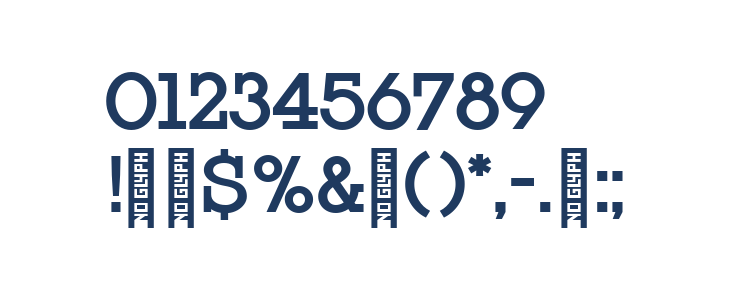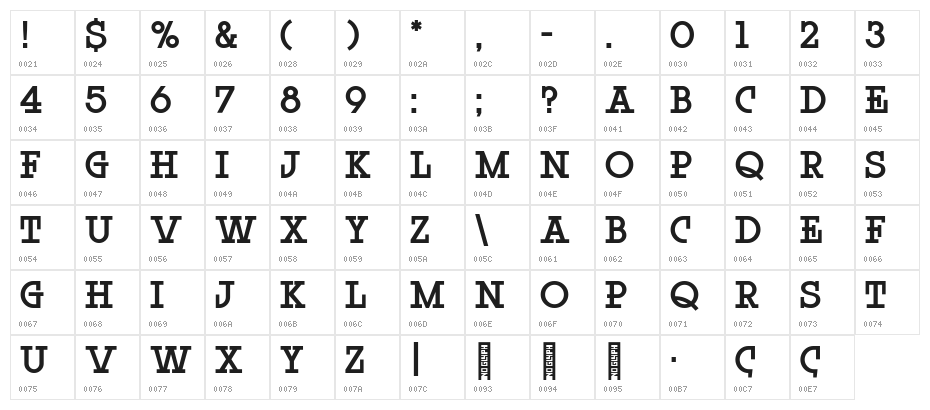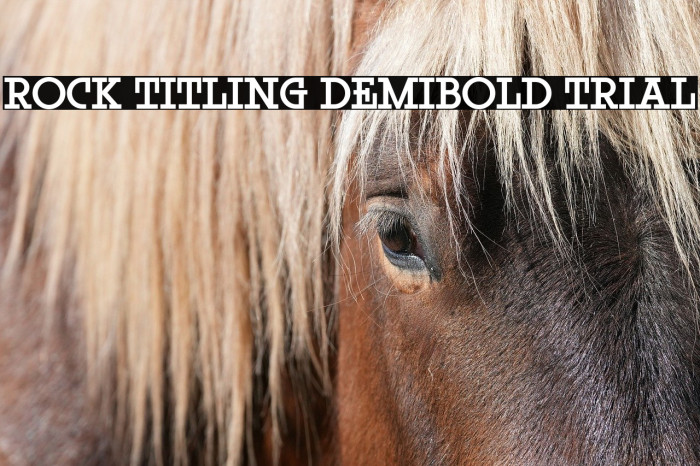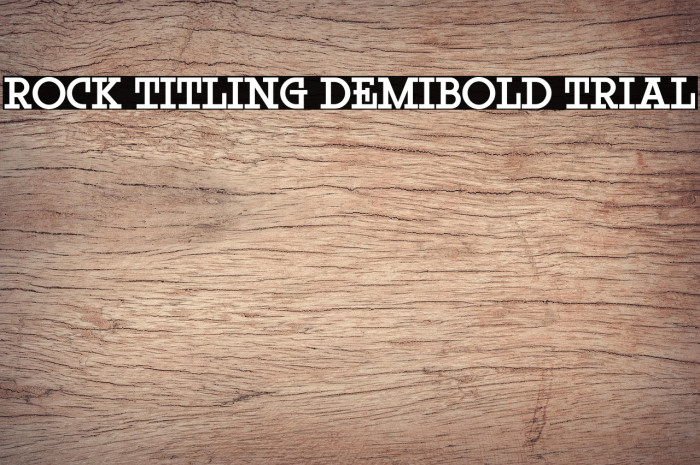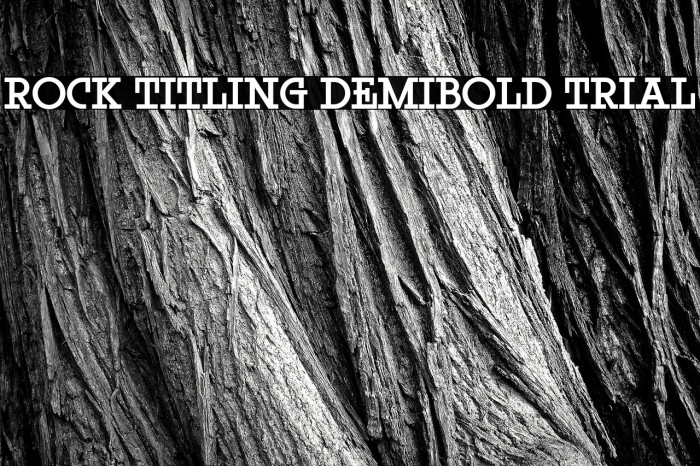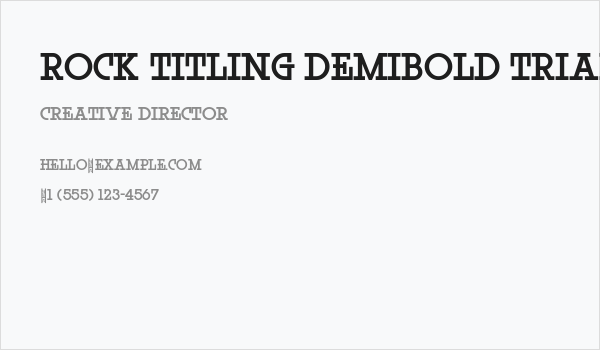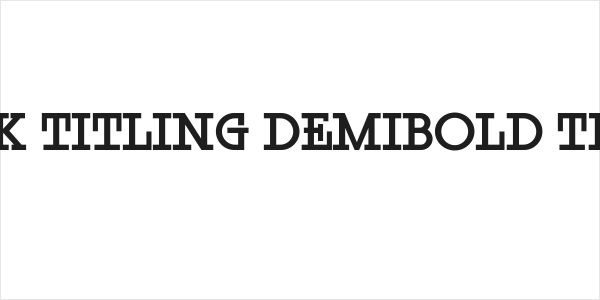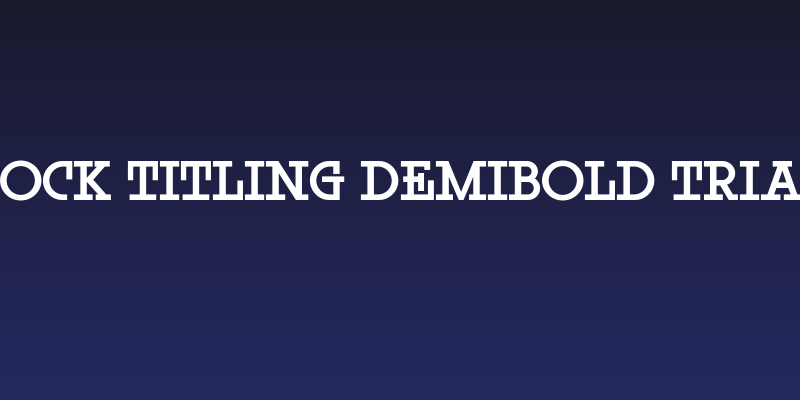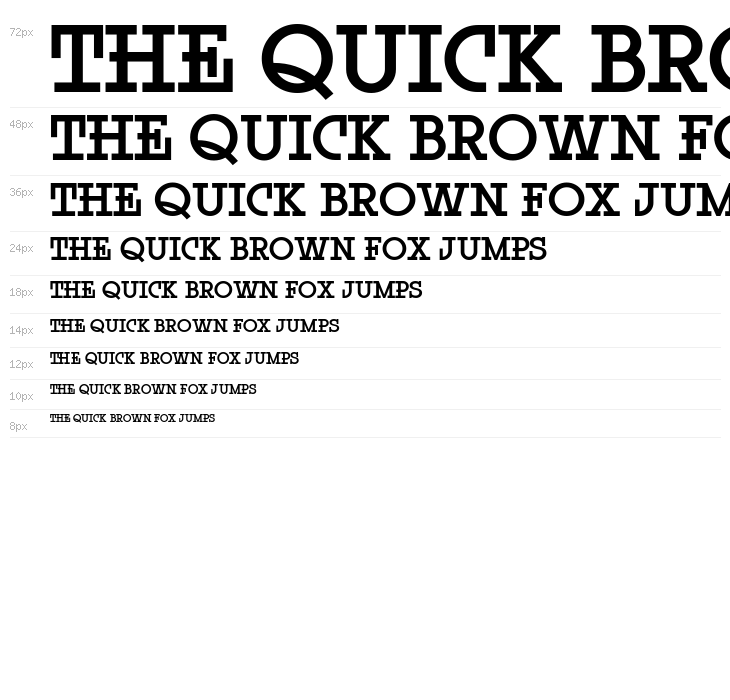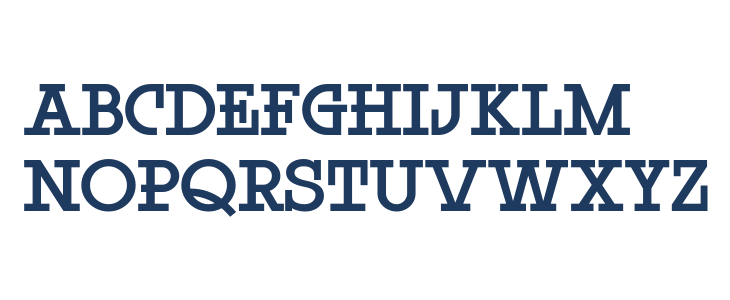
Rock Titling DemiBold Trial Font
Rock Titling DemiBold Trial Description
This font features a bold and commanding presence with its strong, thick strokes and distinct serifs. The uppercase letters are particularly striking, with a robust and authoritative appearance that makes them ideal for headlines and titles. The numerals are equally bold, ensuring clarity and impact. The special characters maintain the same weight and style, providing a cohesive look across all glyphs. The overall design is reminiscent of classic serif fonts but with a modern twist, making it versatile for various design applications.
| Proposed Projects | Ideal for use in headlines, posters, branding, and editorial design where a strong, impactful font is needed. |